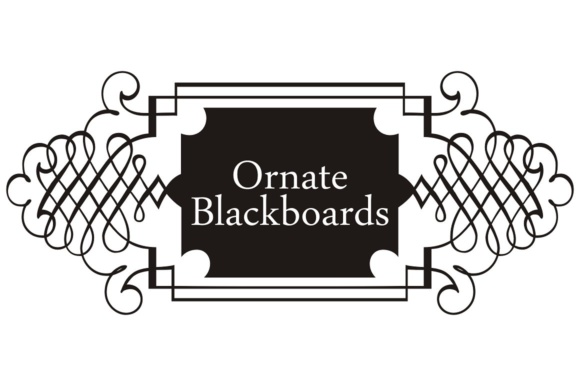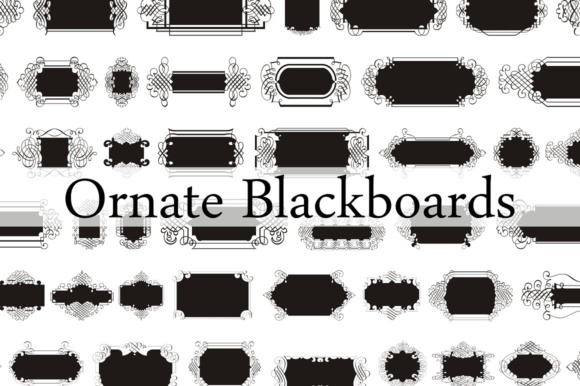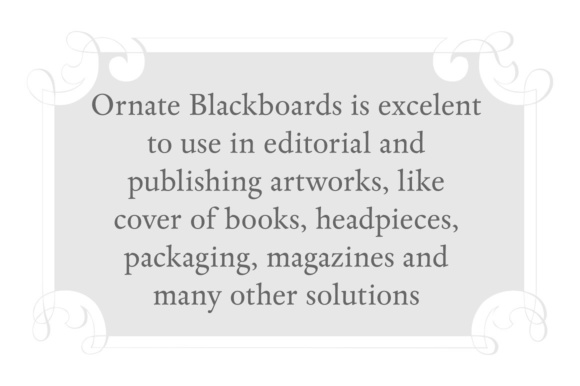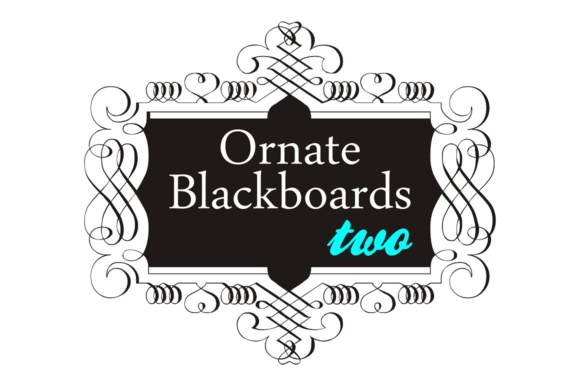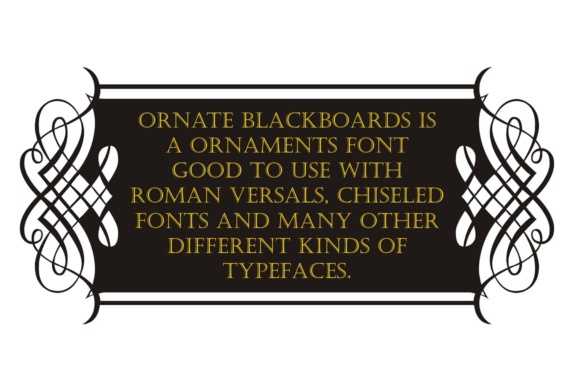
Ornate Blackboards Family Font
About Ornate Blackboards Family Font
Ornate Blackboards, designed by Intellecta Design, is a captivating collection of ornaments that adds a touch of elegance and sophistication to various creative projects. With its intricate and ornamental designs, this font is particularly well-suited for works of art and editorial publications.
One of the main strengths of Ornate Blackboards is its versatility. It seamlessly complements a wide range of design applications, including book covers, headpieces, magazine layouts, and packaging designs. Whether you’re working on a classic novel, a high-end magazine, or a luxurious product packaging, Ornate Blackboards can elevate your visual composition and create a sense of refinement.
The ornaments in Ornate Blackboards are specifically curated to work harmoniously with various typefaces. Whether you’re using roman versals, chiseled fonts, or other type designs, the ornate elements of this font can effortlessly enhance and accentuate your typography. The combination of the ornamental details and the text creates a visually captivating composition that grabs attention and conveys a sense of elegance.
The intricate nature of Ornate Blackboards makes it suitable for both large-scale designs and smaller decorative elements. Whether you’re creating a full-page spread or simply adding a decorative flourish to a specific section, this font provides a wealth of ornamental options to choose from. The diverse range of ornaments allows you to experiment with different styles, sizes, and layouts, ensuring that you find the perfect match for your design concept.
The timeless and classic aesthetic of Ornate Blackboards makes it well-suited for both contemporary and vintage-inspired projects. Whether you’re aiming for a modern, minimalist look or a nostalgic, retro feel, this font can adapt to your design vision and create a cohesive and visually striking result.
In summary, Ornate Blackboards is a remarkable collection of ornaments that brings a touch of sophistication and artistic flair to various creative projects. Its versatility, compatibility with different typefaces, and adaptability to different design styles make it a valuable asset for designers working on works of art, editorial publications, packaging, and beyond. With Ornate Blackboards, you can elevate your designs and create visually captivating compositions that leave a lasting impression.